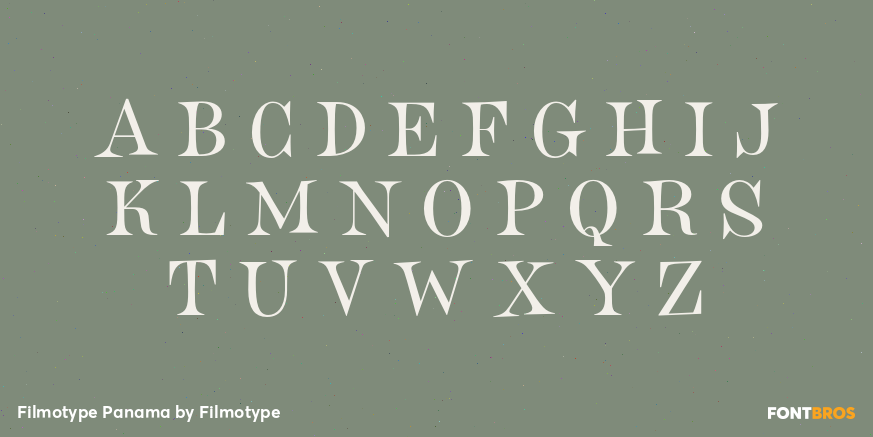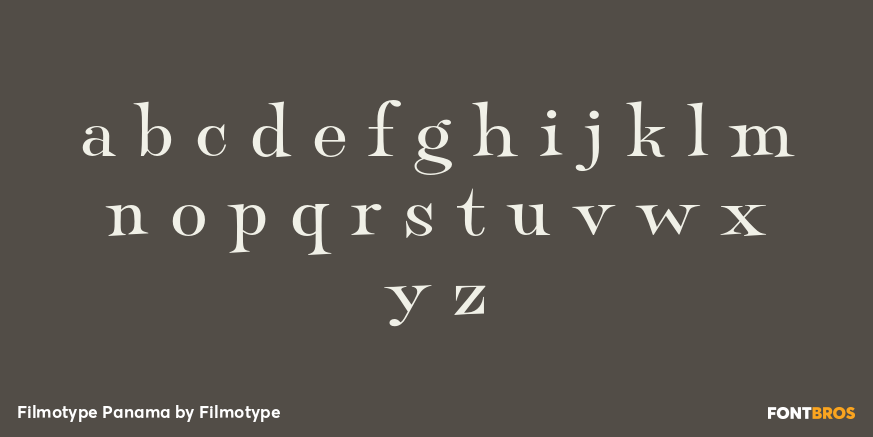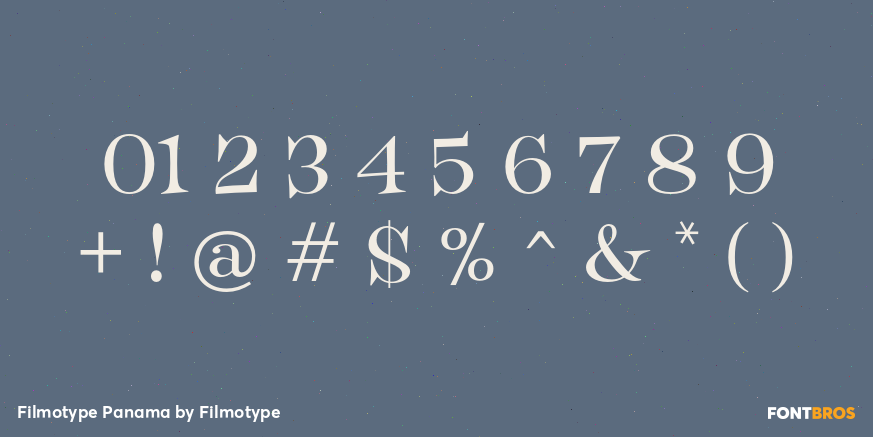
Filmotype Panama
Initially offered in the late 1950s, Filmotype Panama was one of Filmotype's 'tipsy' serif Free Style typefaces which featured a delightful blend between casual serif and latin styles. Remastered and expanded with exacting precision from the original filmstrips, Filmotype Panama includes a full international character compliment, automatic fractionals, ordinals, and a suite of alternates in dynamic OpenType format.